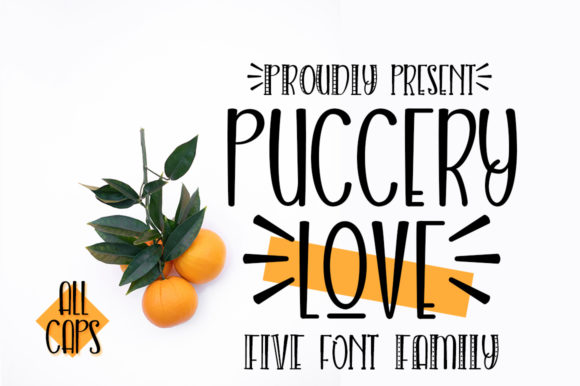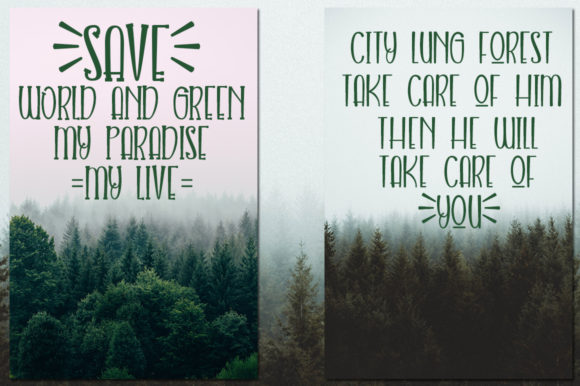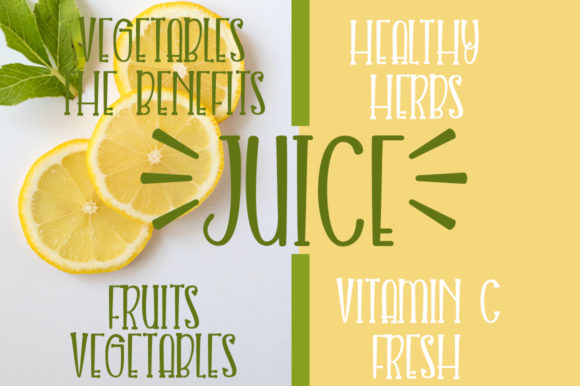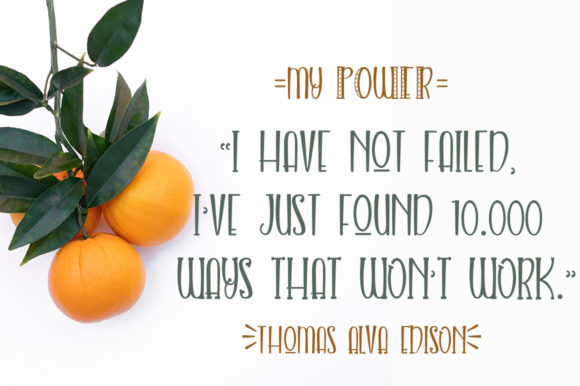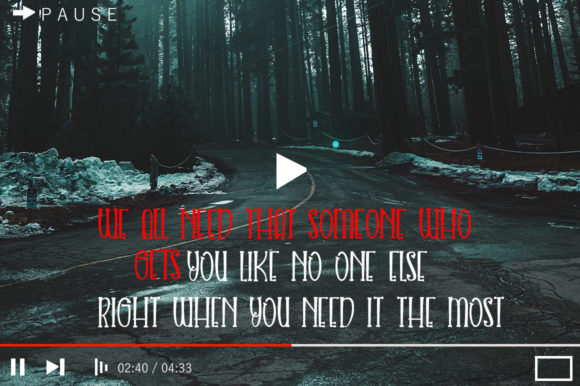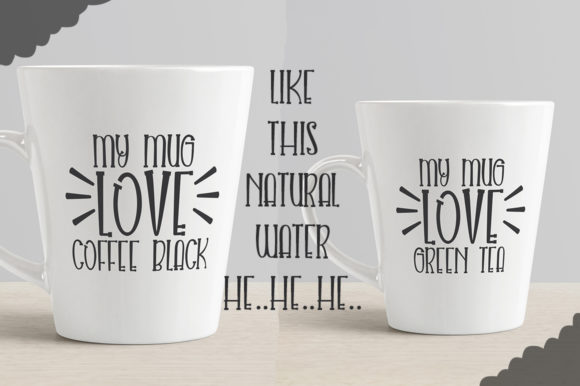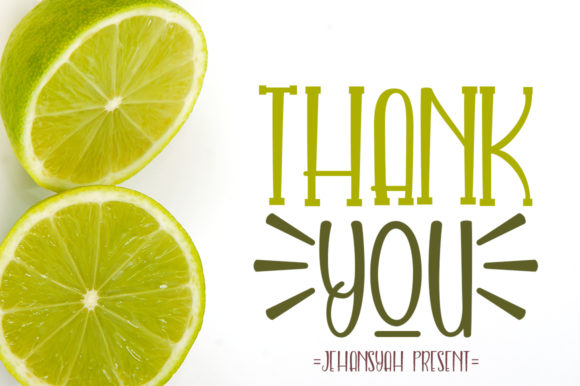
Puccery Love Font
About Puccery Love Font
Puccery Love is a cute handwritten font. Get inspired with its unique playful look and create stunning designs! Whether it’s for web, print, moving images or anything else – Puccery Love will look spectacular!